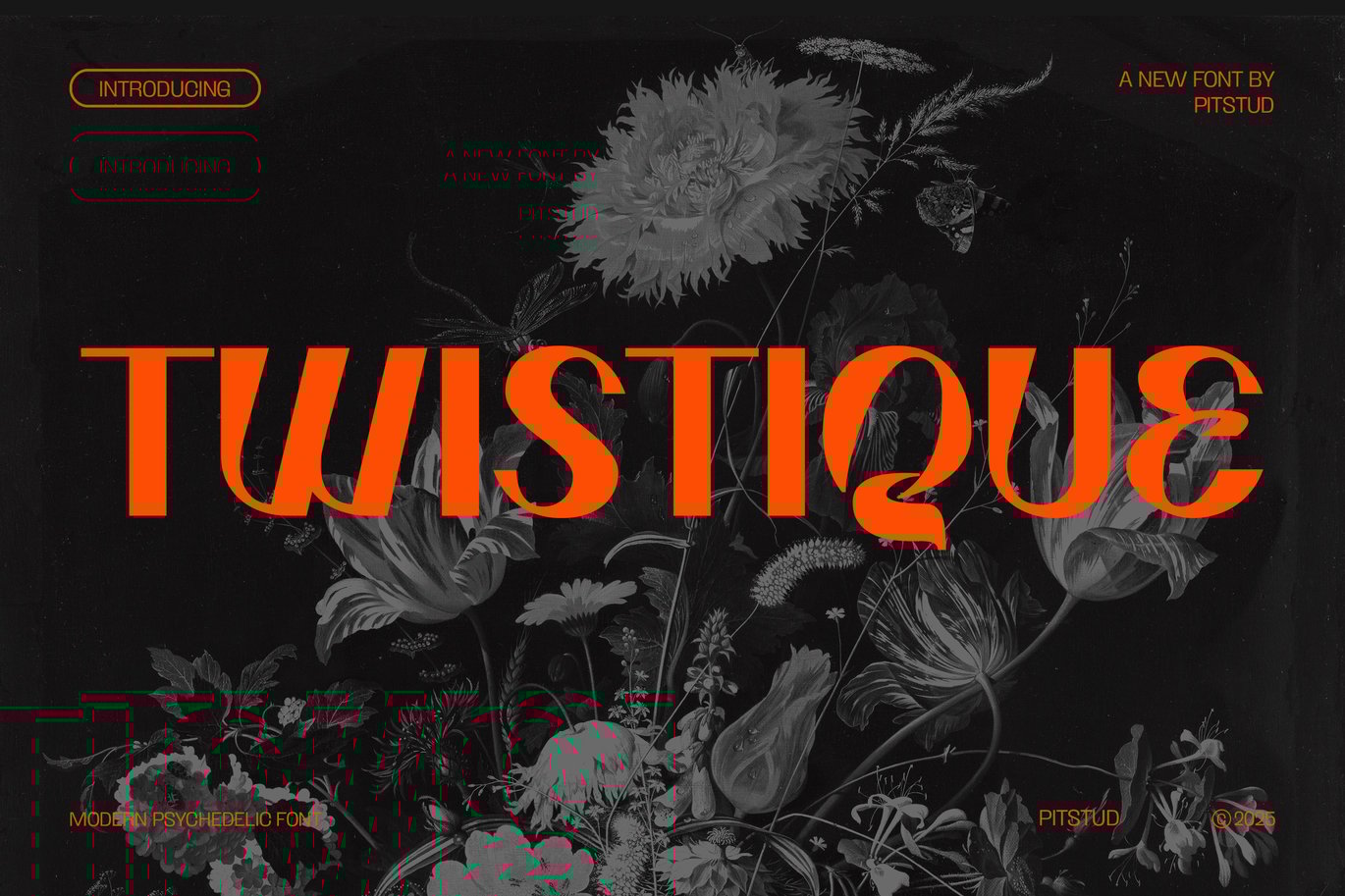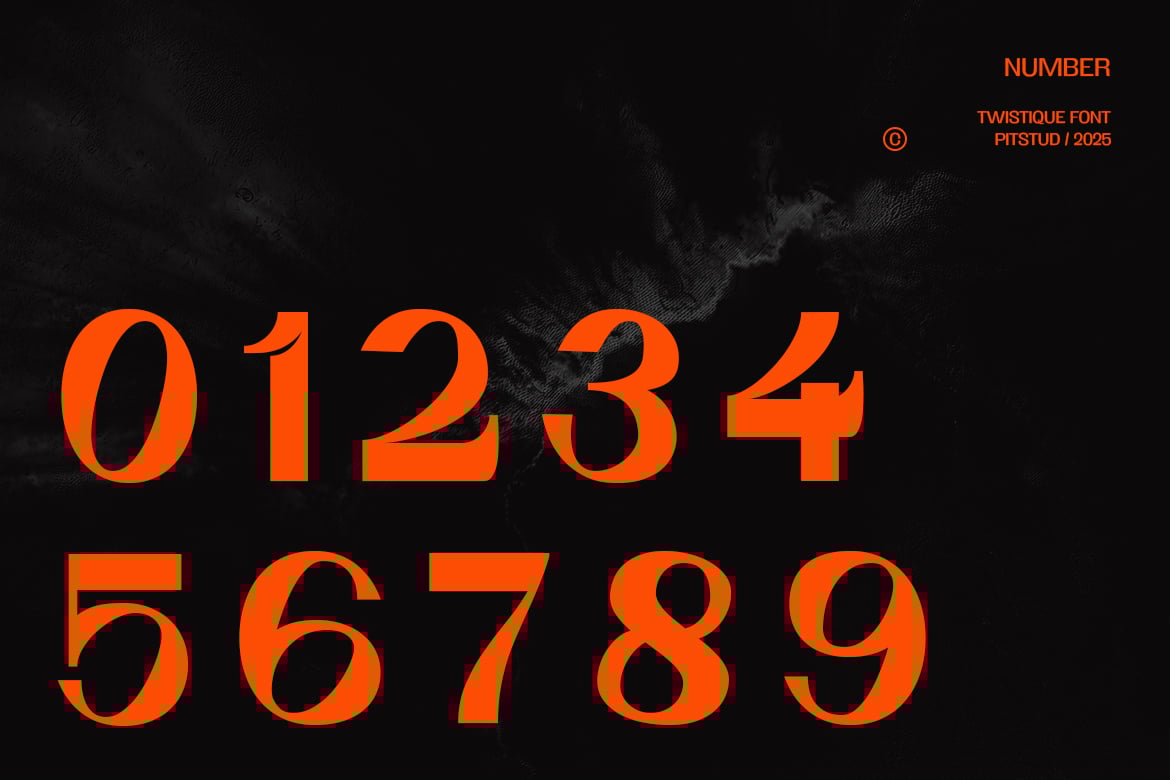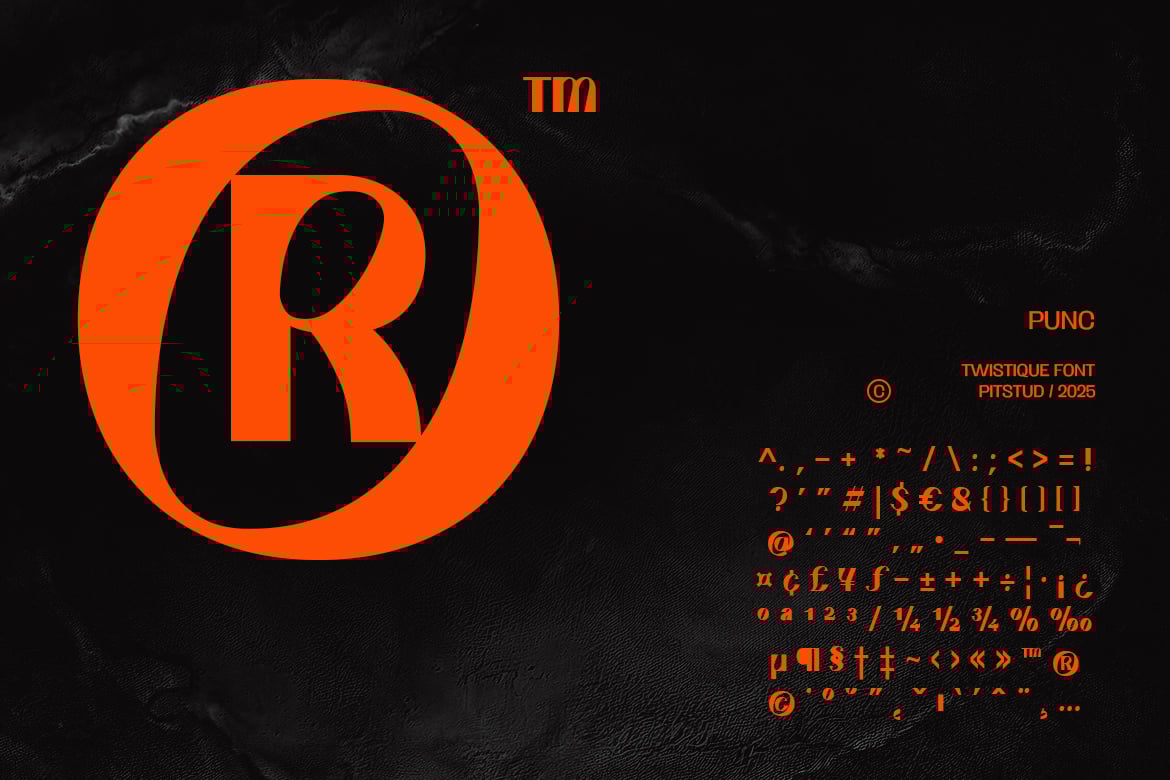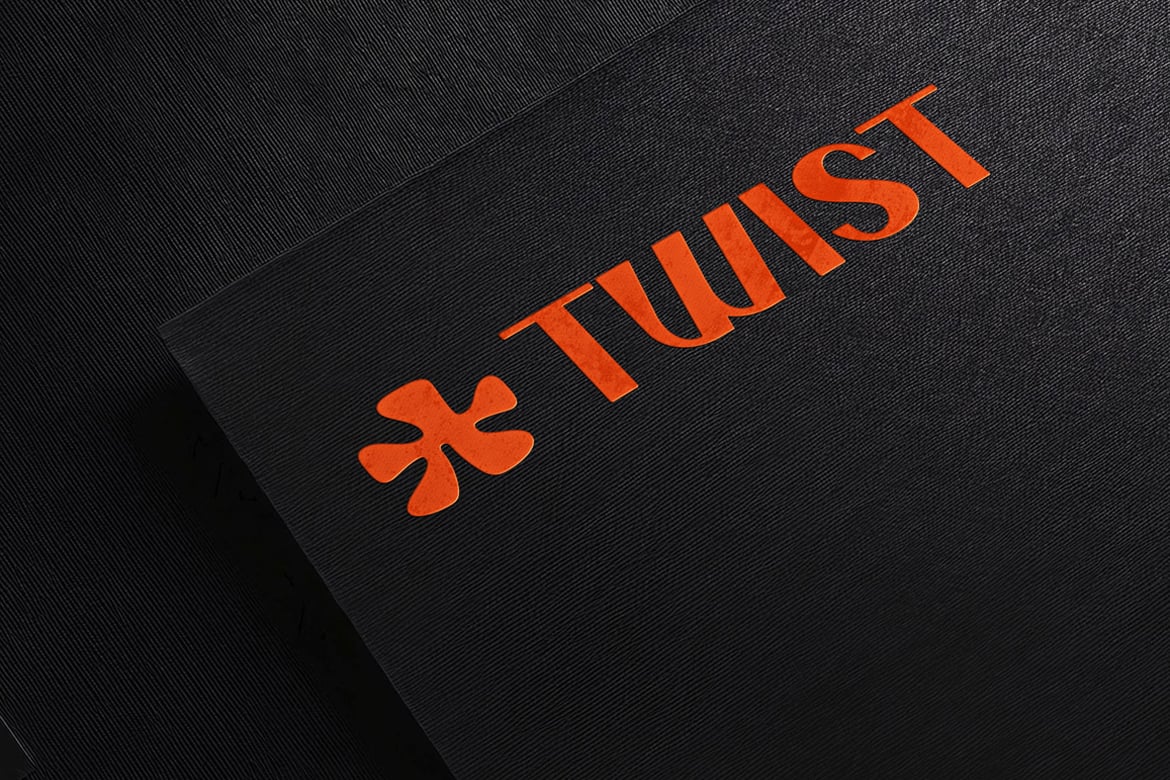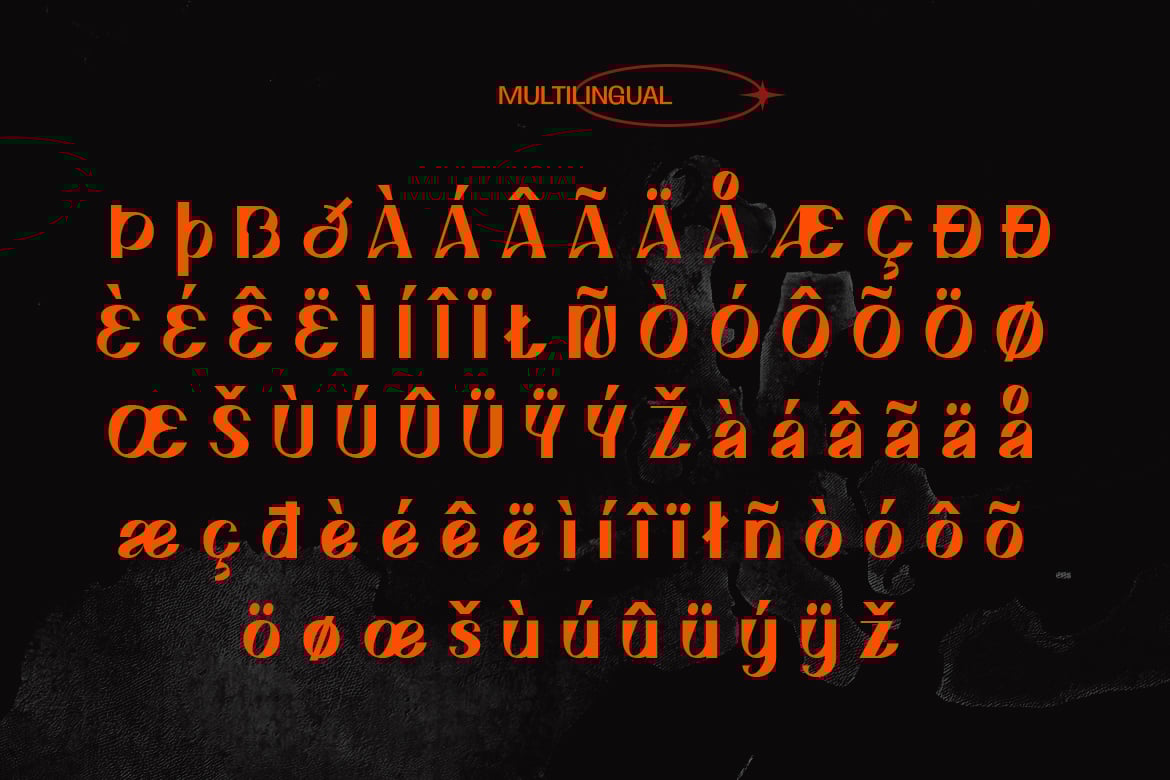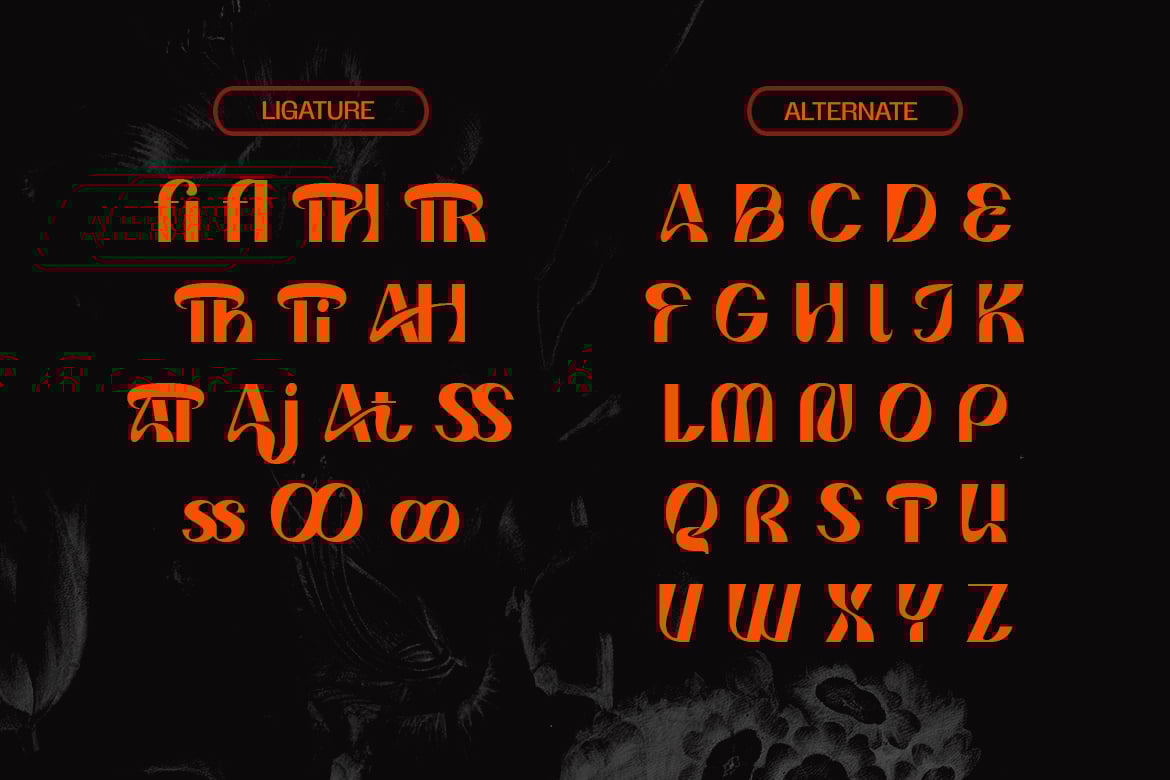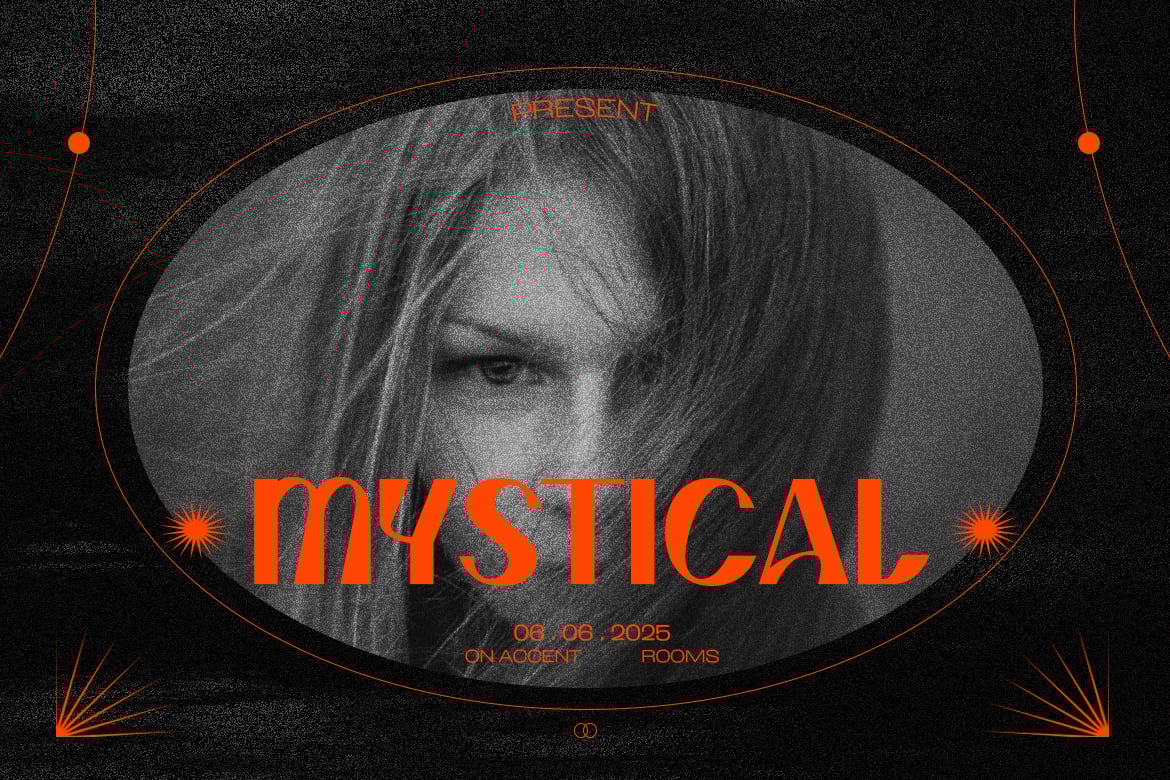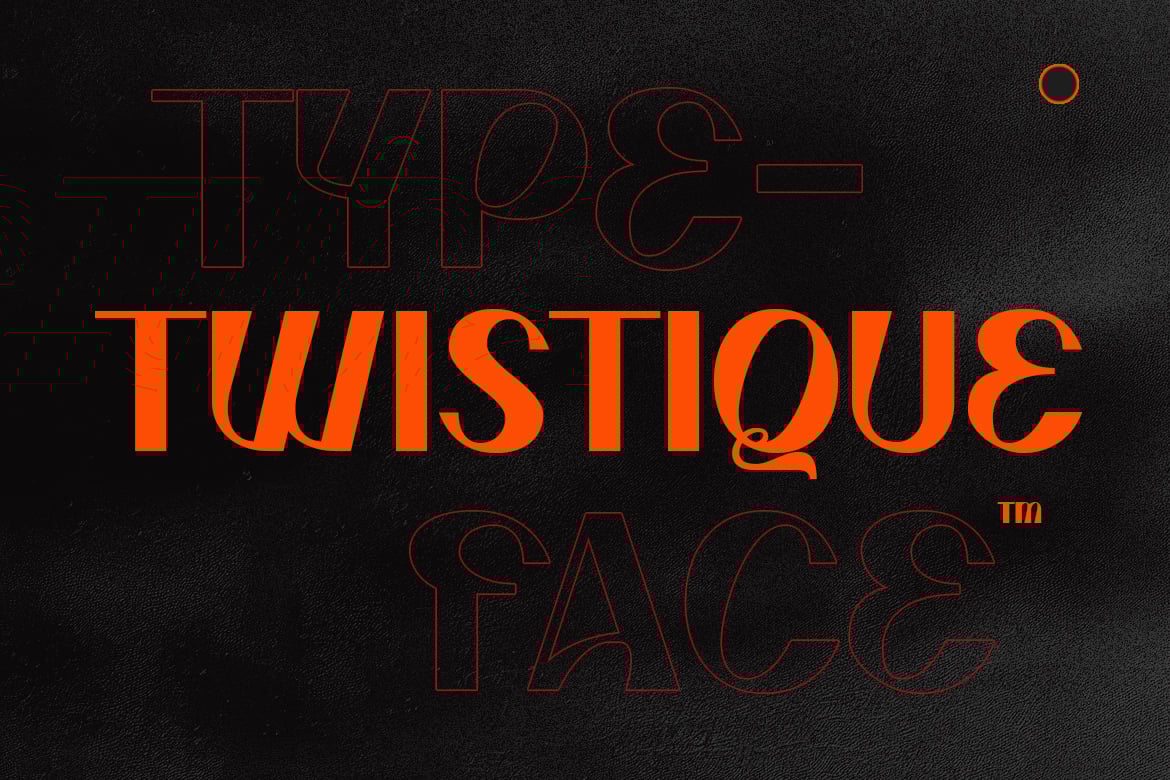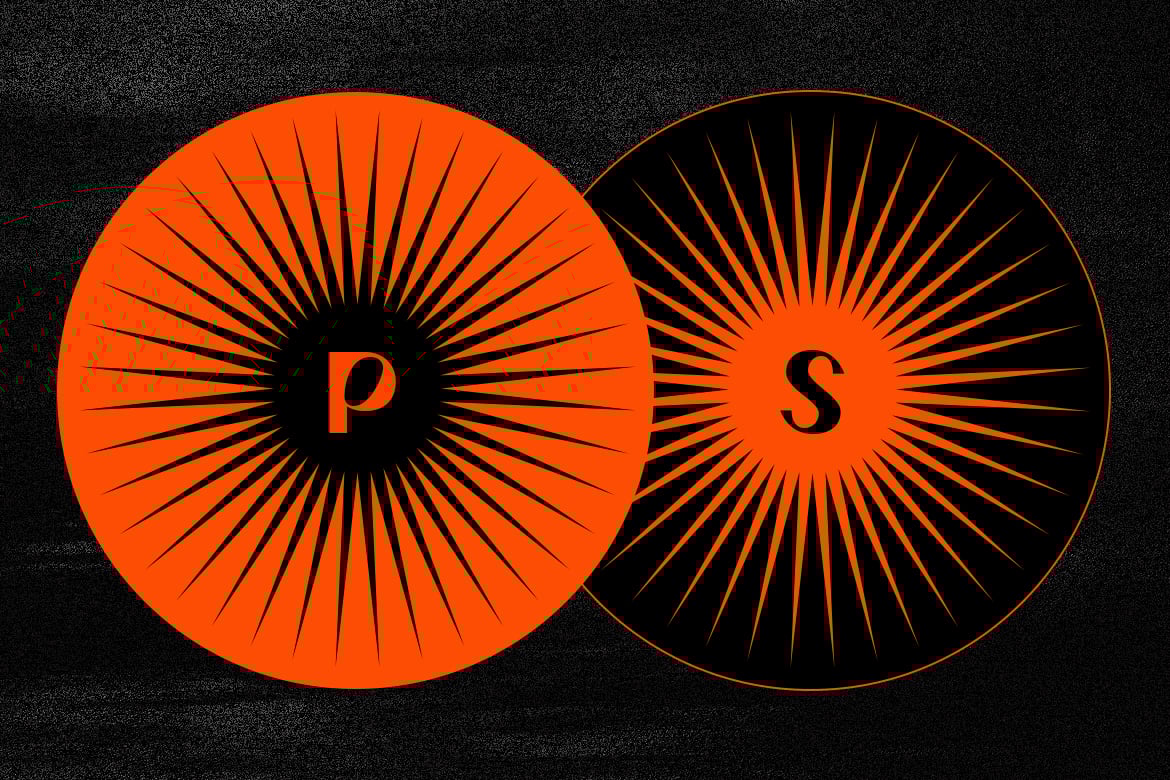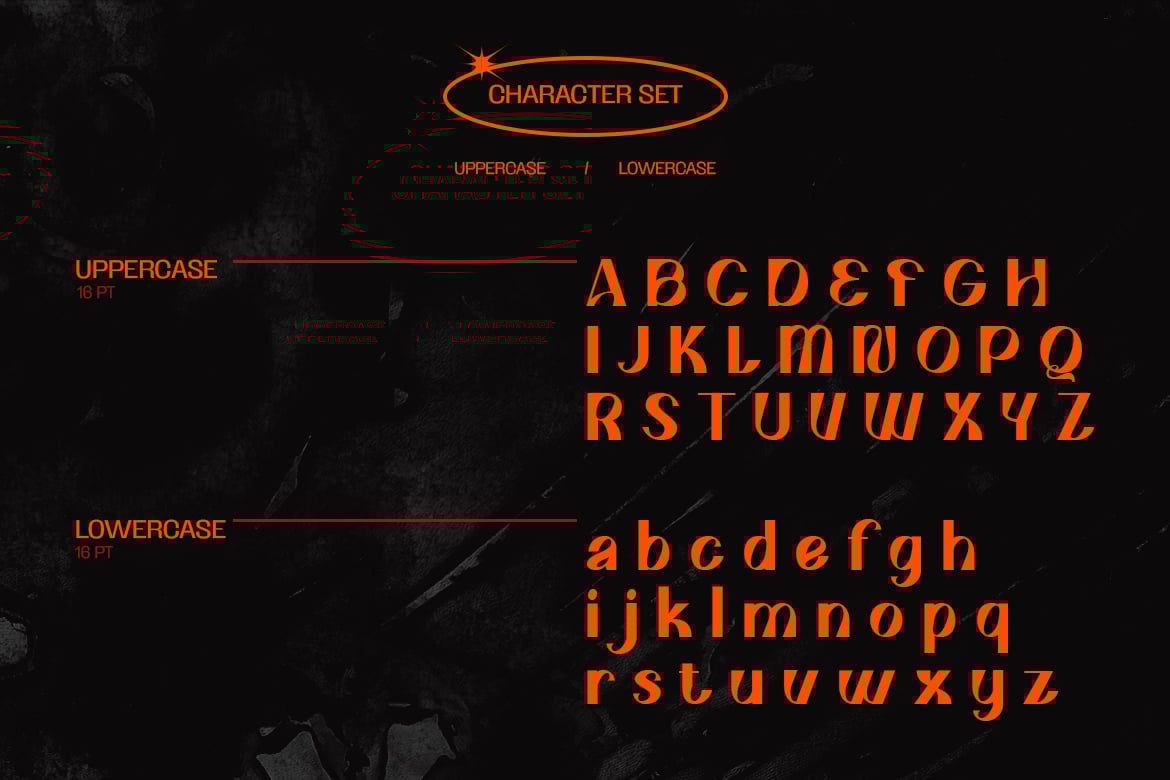
Twistique – Psychedelic Fashion Font
Twistique – Psychedelic Fashion Brand Font
is a premium psychedelic fashion brand font designed to bring vibrant energy to your branding and design projects. Crafted with modern groovy influences, this font offers a sleek, stylish, and professional touch for logos, marketing materials, packaging, and digital applications.
Perfect For
Whether you’re working on a contemporary fashion brand, vintage magazine covers, or psychedelic event branding, Twistique will give your design a trendy and bold edge. It’s ideal for use in logo design, fashion marketing, magazine headers, and creative advertisements.
Font Features:
- Clear and Versatile Design: Offers easy readability with a modern style that stands out in both digital and print mediums.
- Complete Character Set: Uppercase and lowercase characters, numbers, punctuation, and symbols.
- OpenType Features: Access alternates, ligatures, and unique stylistic sets to customize your design.
- Multilingual Support: Includes support for multiple languages, including English, Spanish, French, and German.
Twistique combines bold lines and fluid curves to create a striking visual impact while maintaining clarity. Whether you are designing for fashion branding, album covers, or unique logo creation, this font adapts to your needs and enhances the visual appeal of your design.
Perfect For:
- Fashion Branding: Elevate your brand’s visual identity with a psychedelic touch.
- Magazine Covers: Add a bold and nostalgic vibe to your editorial projects.
- Logo Design: Perfect for creating striking, memorable logos for trendy brands.
- Event Promotions: Design groovy, eye-catching posters and invitations.
- Creative Advertising: Stand out with unique, vibrant marketing materials.